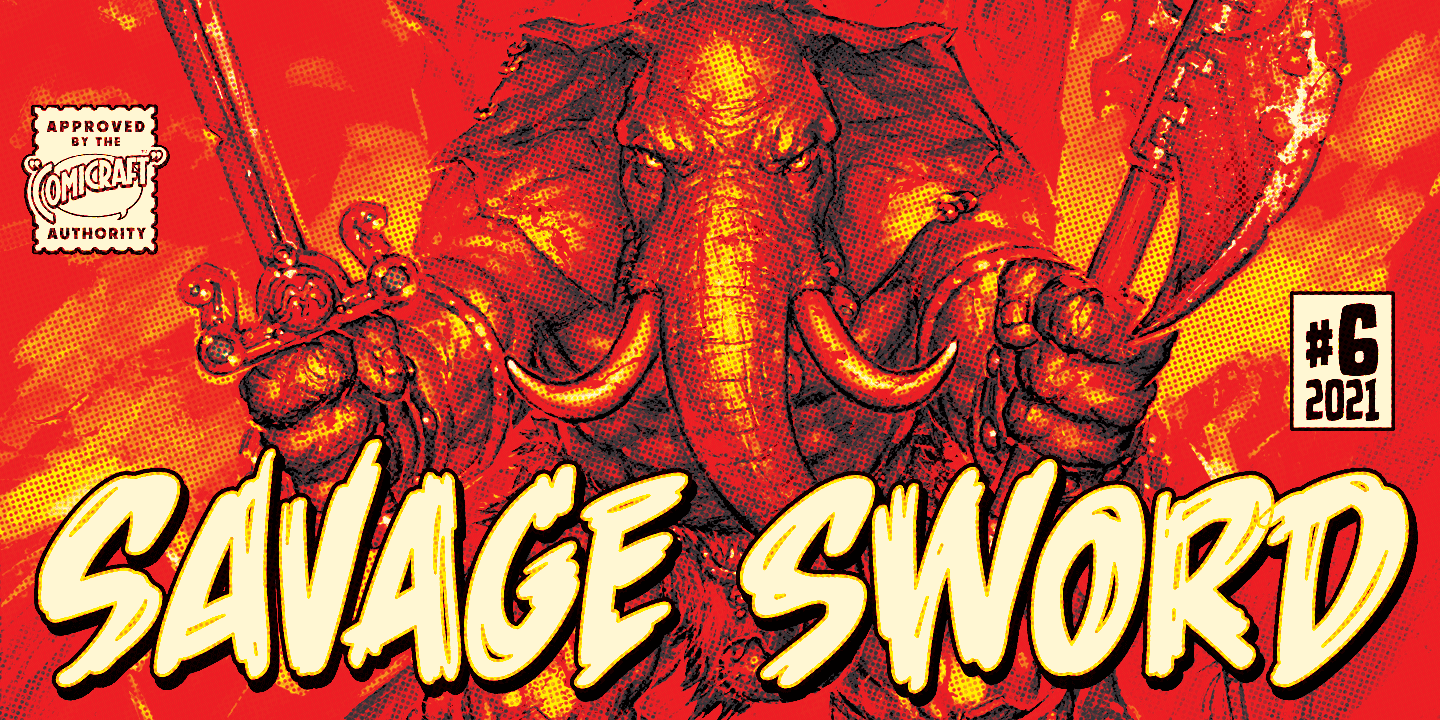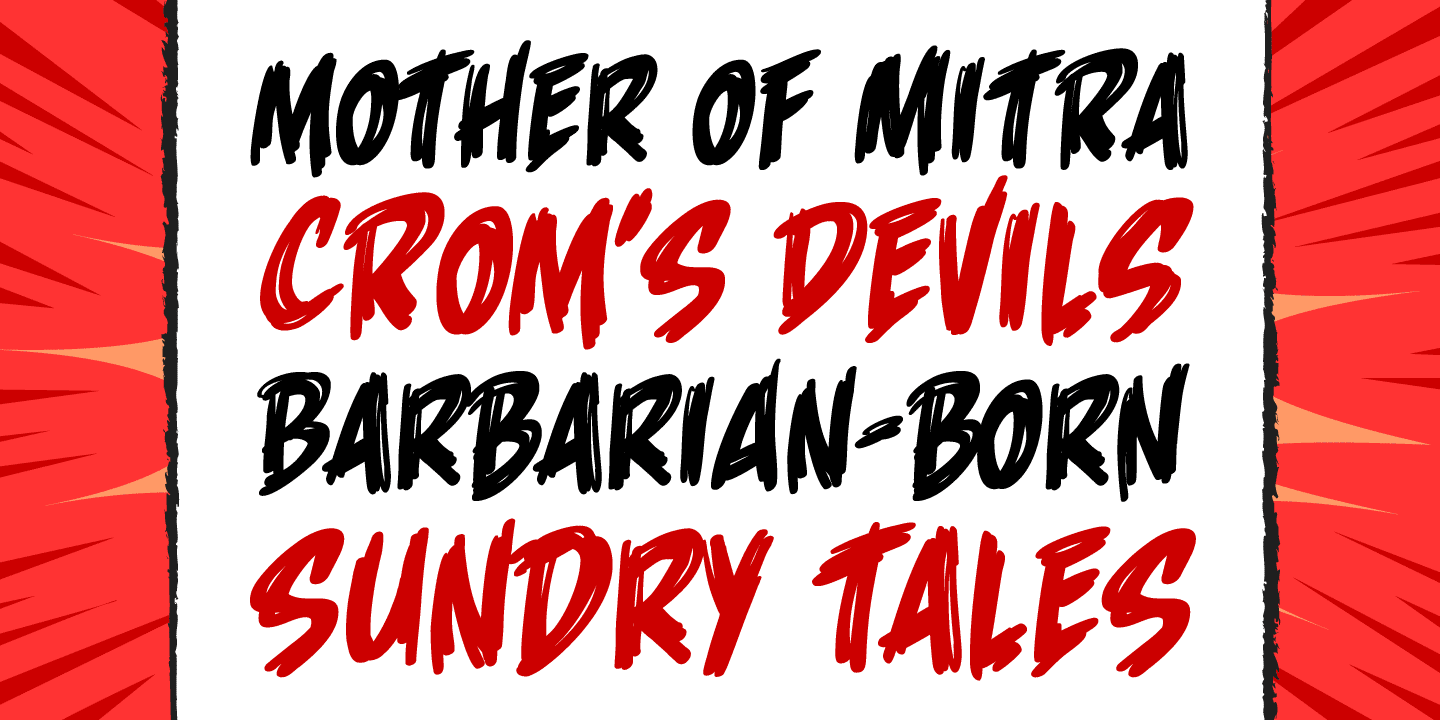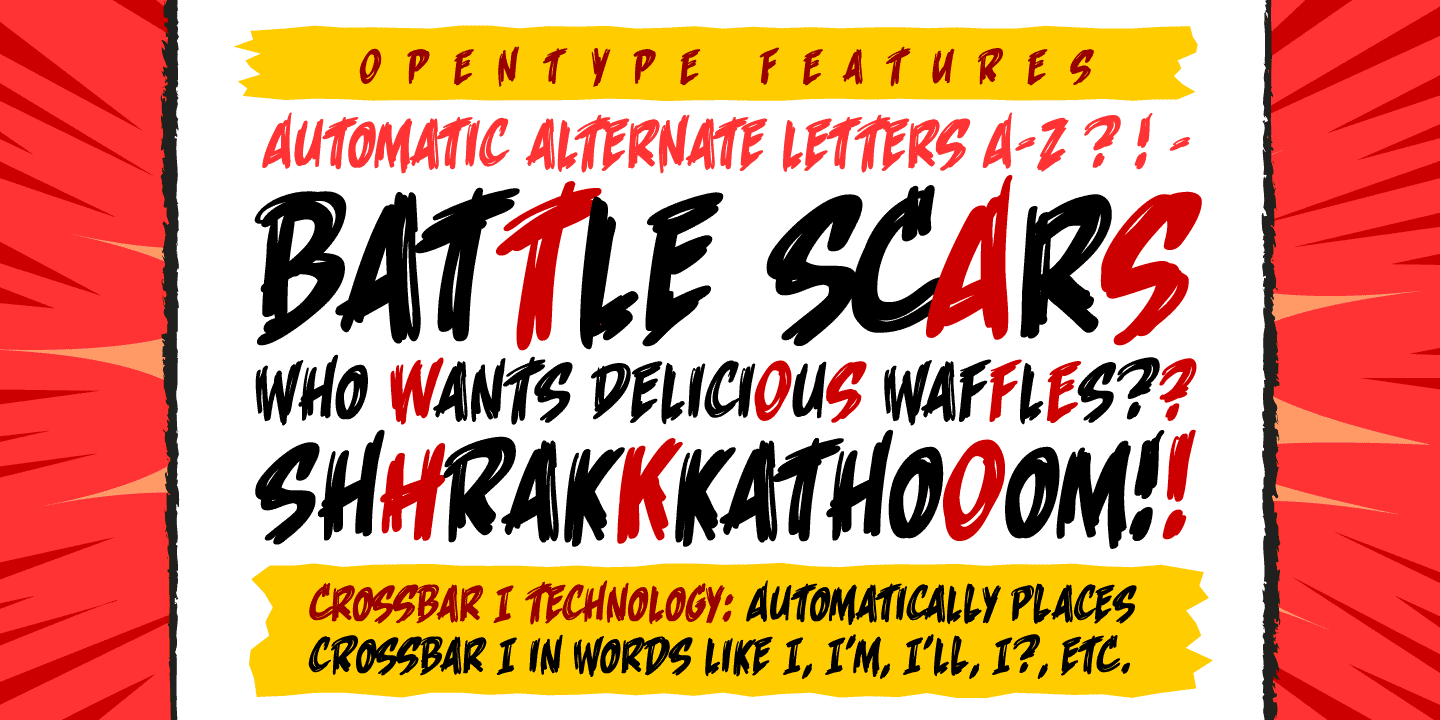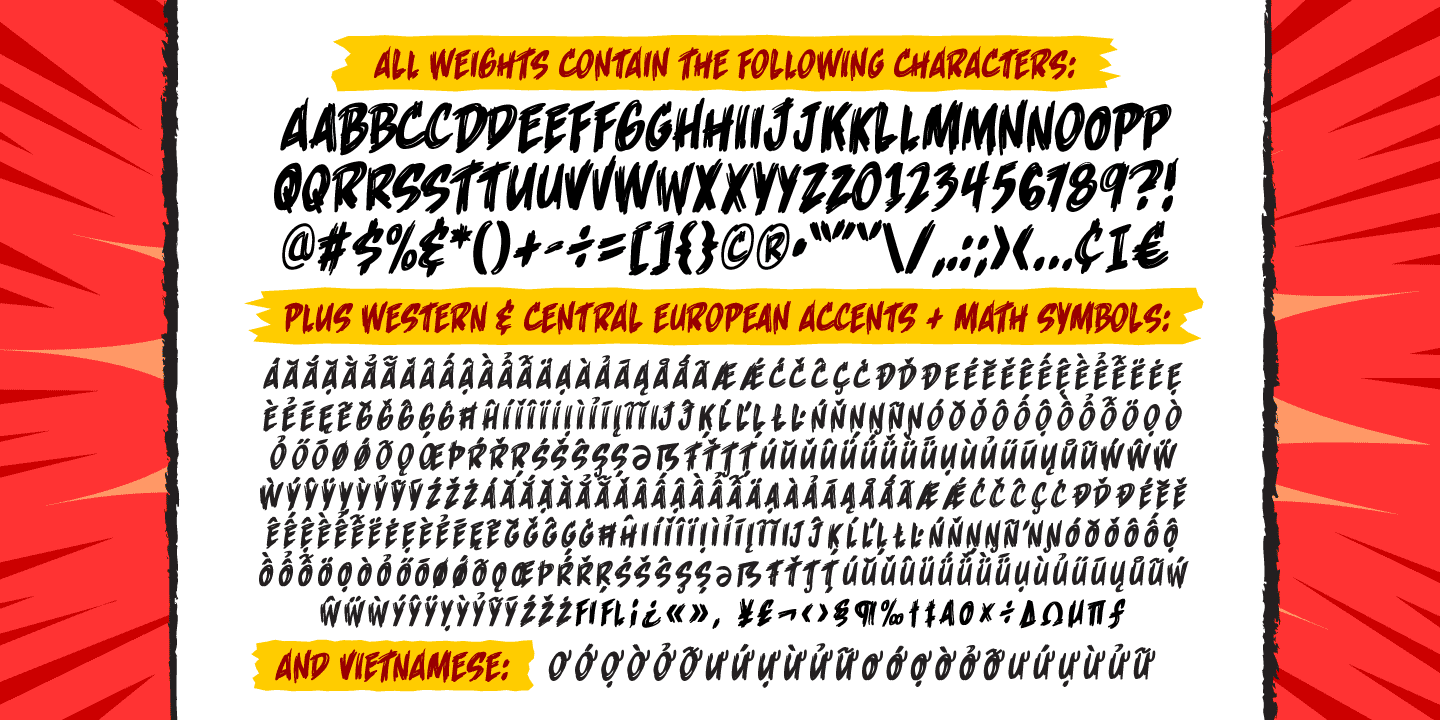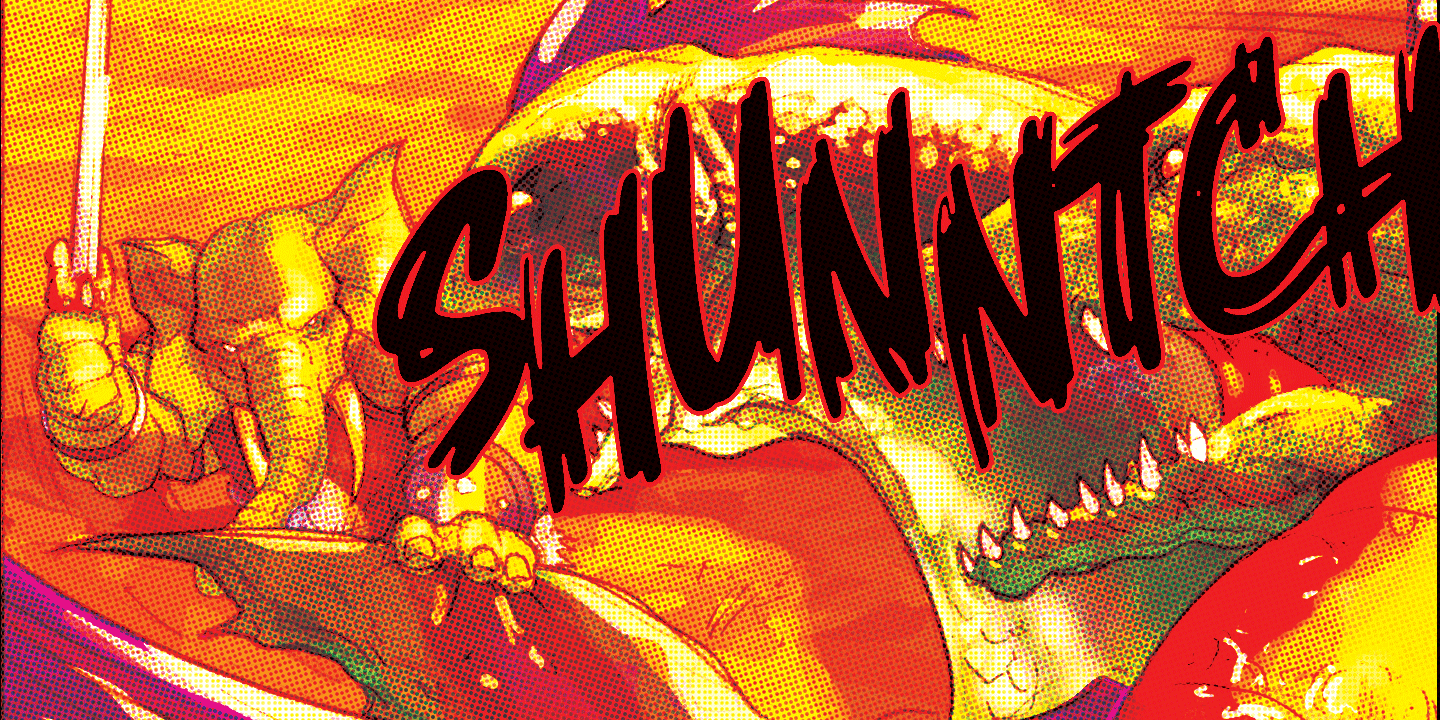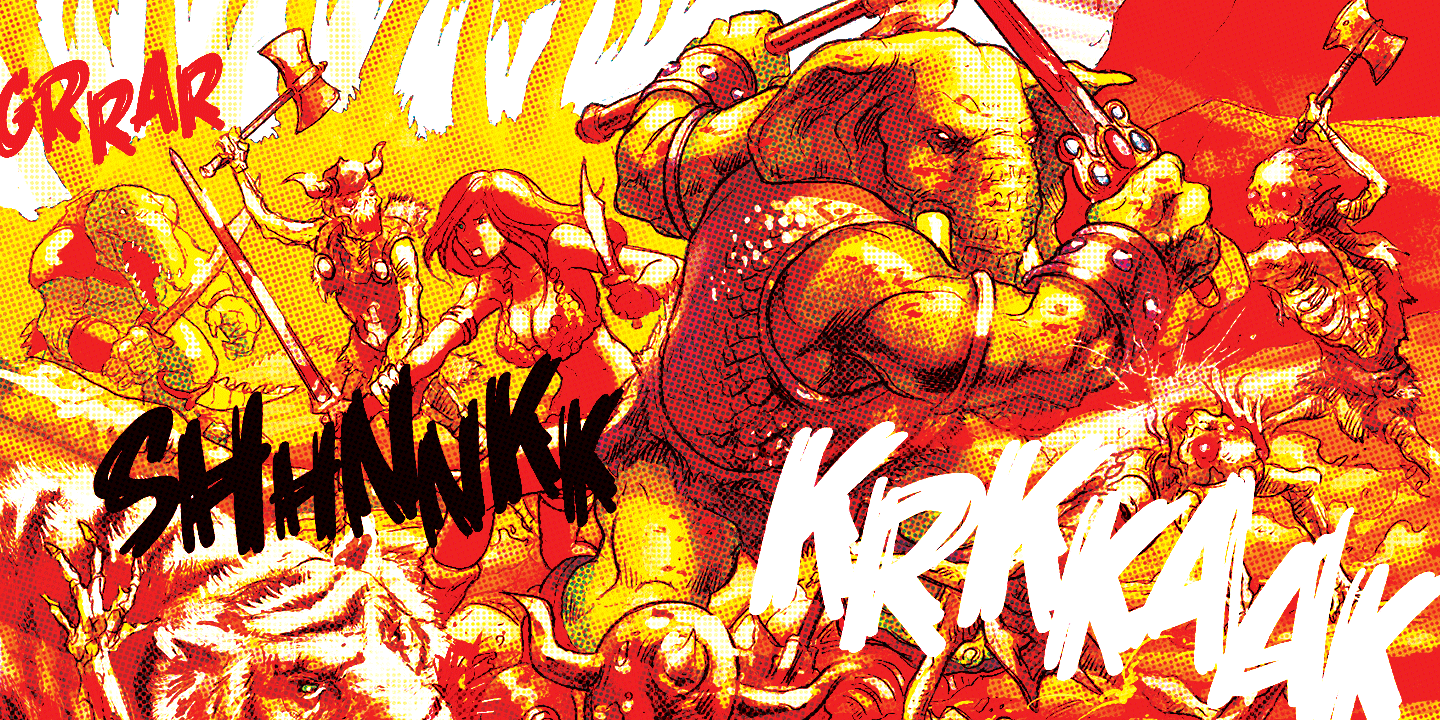
Savage Sword
Buy NowMother of Mitra, Crom's Devils and other Savage WORDS! The only thing better than one dead Pict is TWO! Or THREE! Or FOUR! And what better than this SAVAGE font to sound the sword strokes of a BARBARIAN BORN?! Hack! Slice! Cut your fiendish foes into pieces with Comicraft's SAVAGE SWORD and tell your SAVAGE TALES to all and sundry and even those you've sundered!